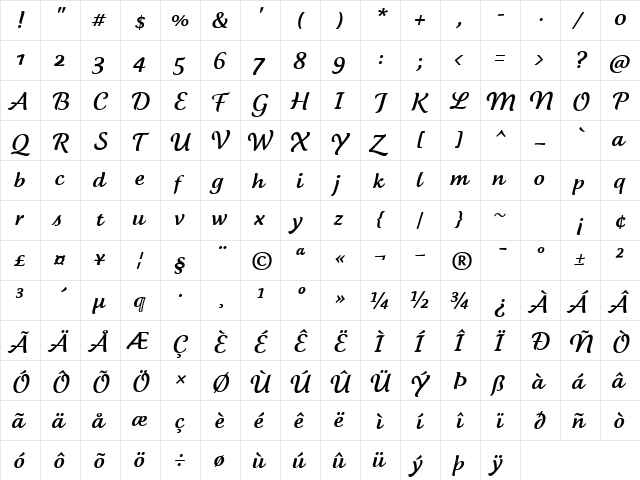
Tartine Script Regular Regular
Design Context for Tartine Script Regular Typeface
Tartine Script Regular brings a calligraphic fluidity to the page — its connecting strokes and expressive curves give it an unmistakably human quality.
Font Pairing: Combine Tartine Script Regular with a simple geometric sans for maximum contrast — the tension between flowing curves and clean structure is a classic typographic pairing.
Pro Tip: Use Tartine Script Regular for short runs of text — names, titles, or taglines. Extended body copy in script faces tires the eye quickly.